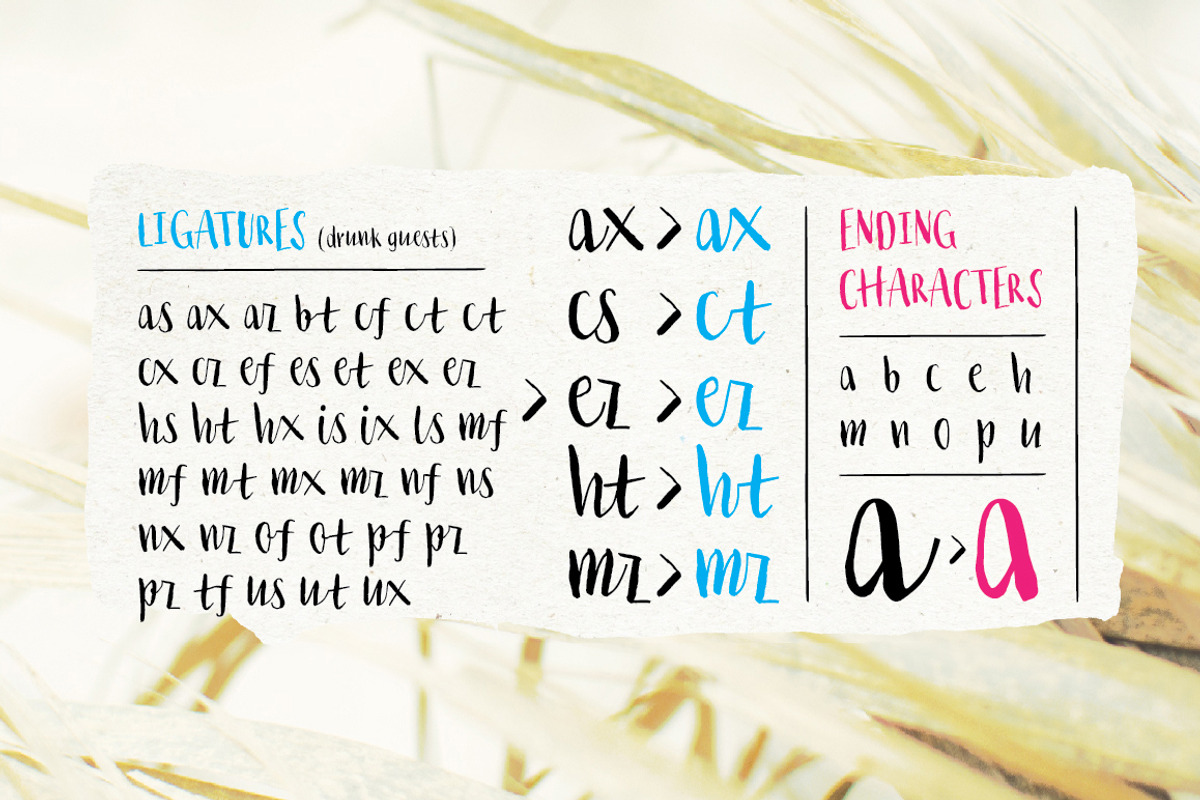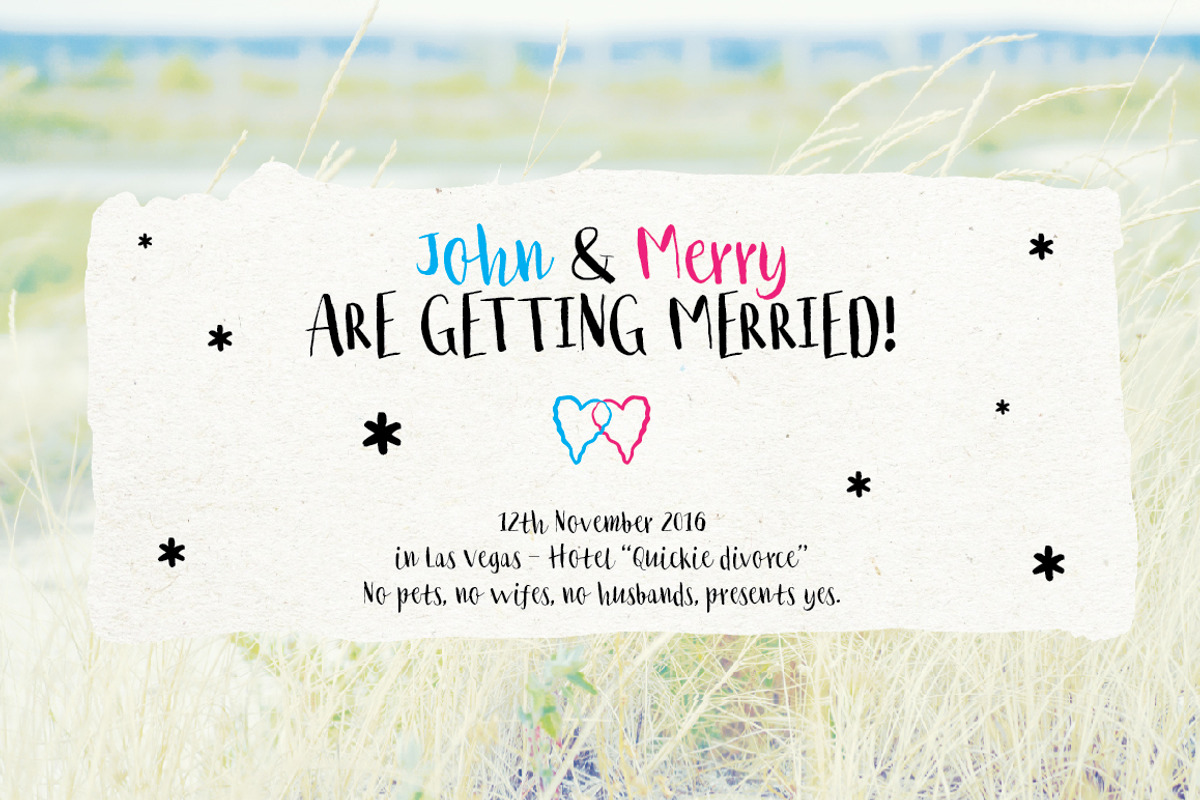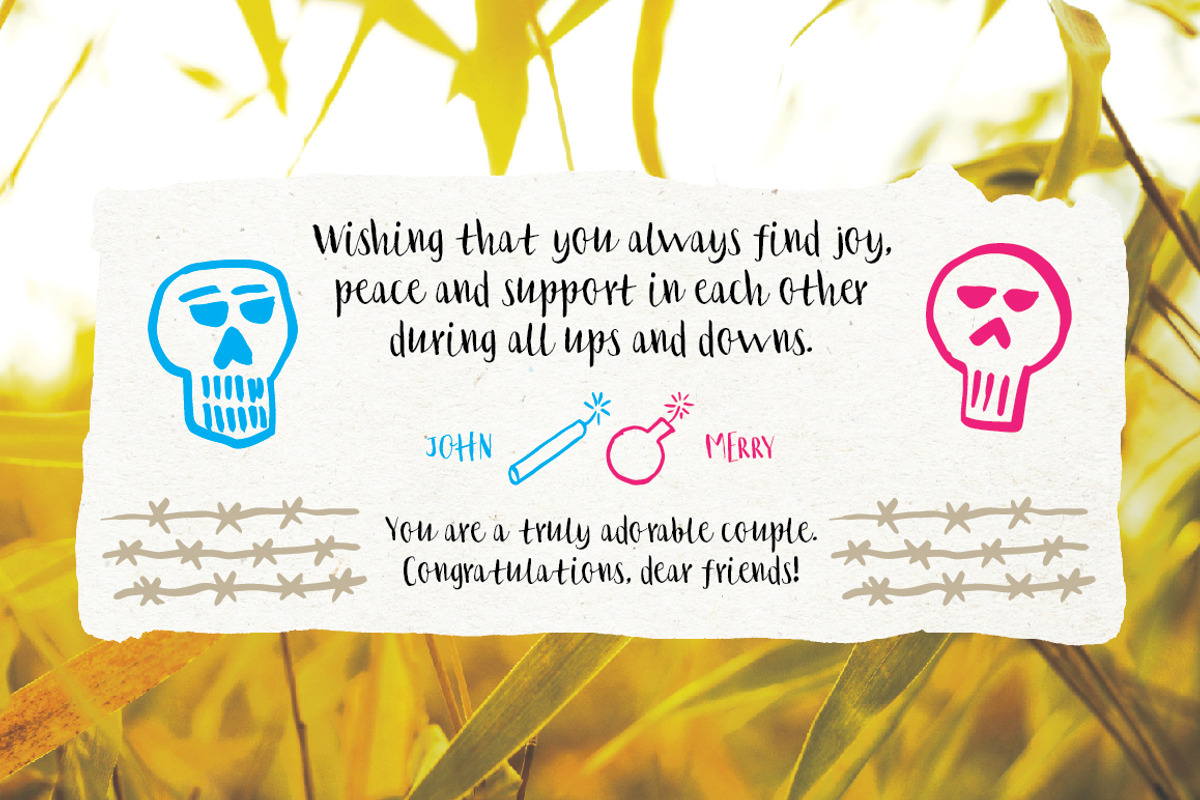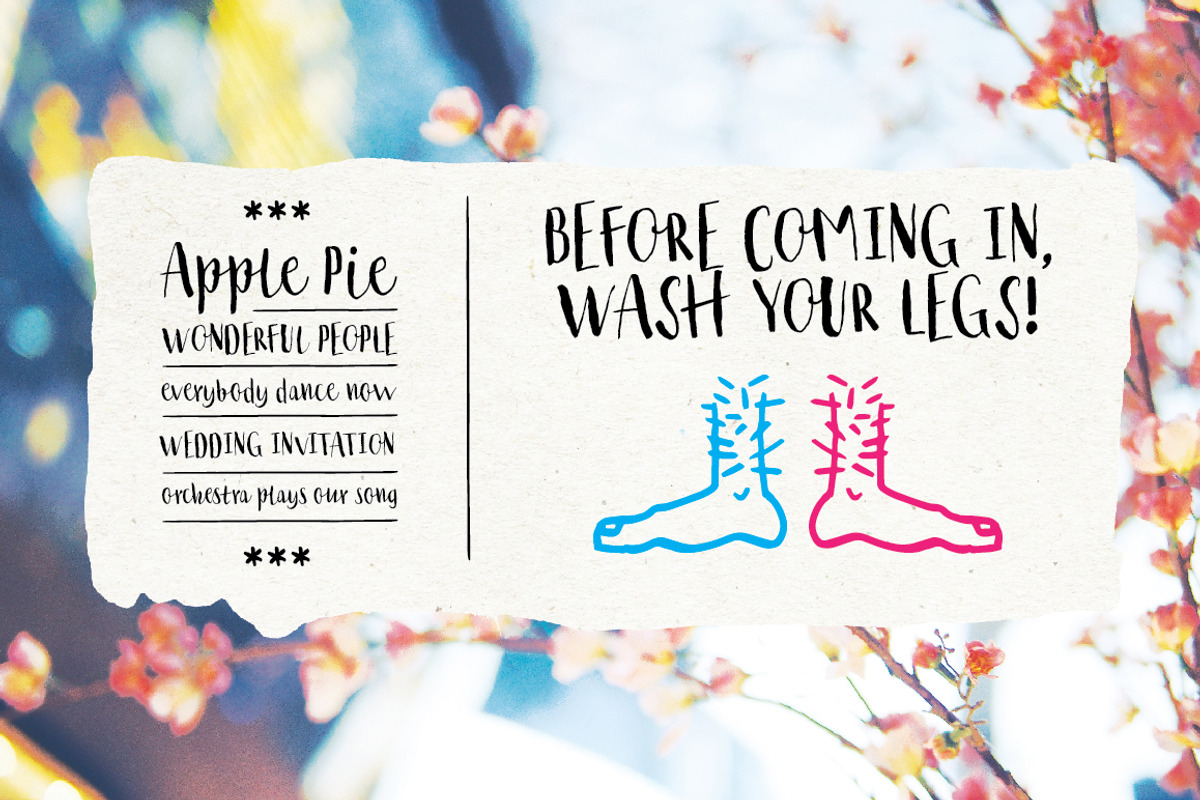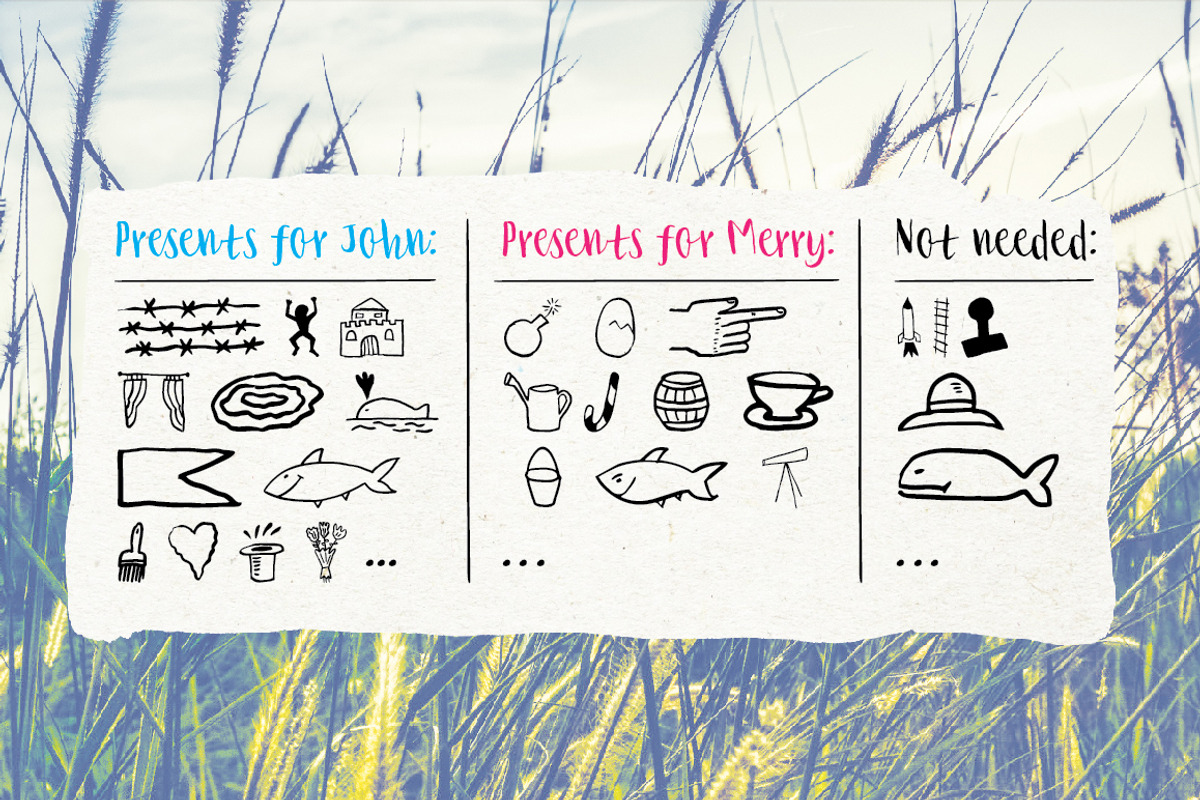
Crazymond font family
Crazymond font family by Tour de Force FF is a font selected for branding, posters, packaging, typography.
- Contains 38 ligatures, 12 ending characters and collection of 42 dingbats.
Crazymond font family by Tour de Force FF fits naturally into Branding, posters, packaging, typography.